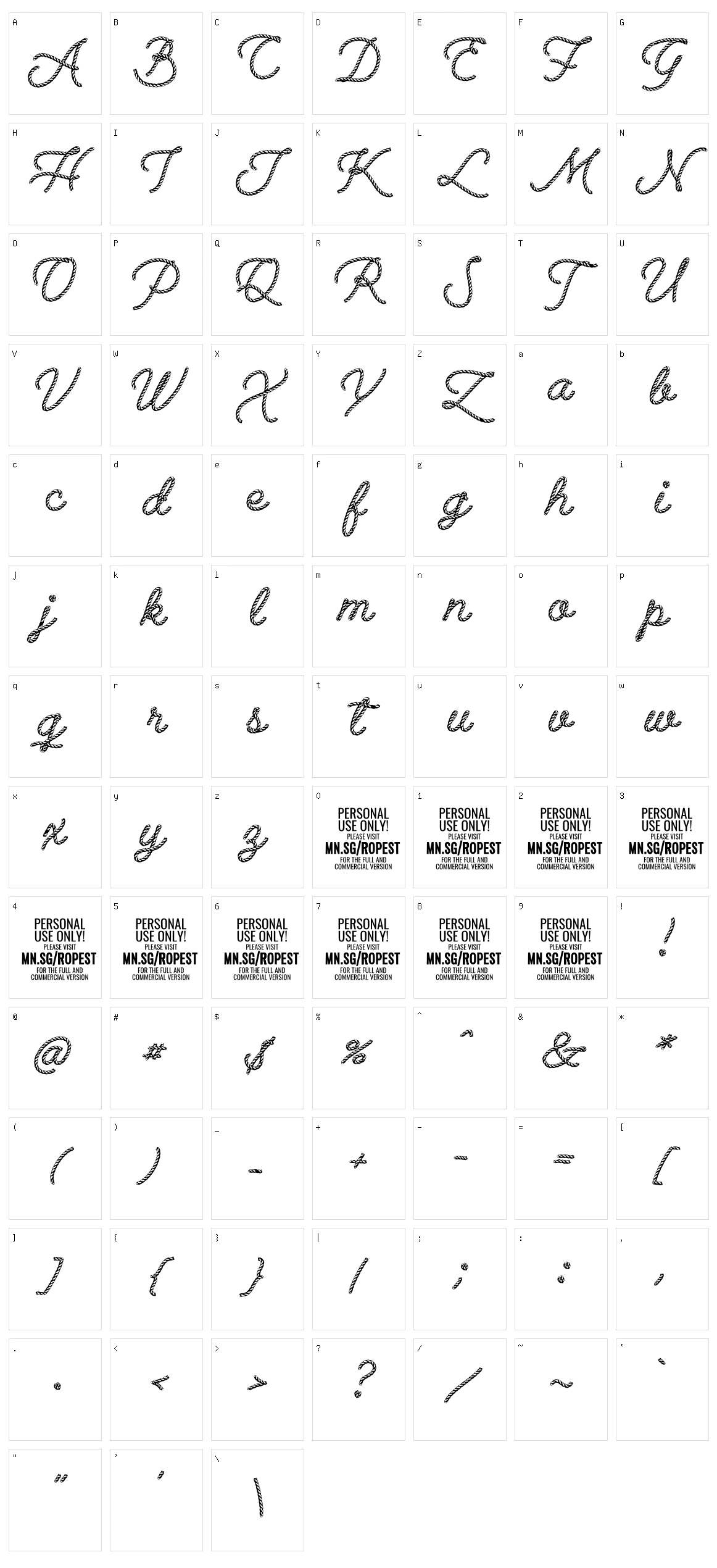
Ropest is a decorative script typeface, created by Måns Grebäck during 2018.
It keeps the same quality as any cursive font, while also being a brave display typeface.
The family comes in two styles; one primary that has the real rope appearance; one Black or solid, to be used by itself or as a background to the rope font.
It contains ligatures, and has support for all Latin based European languages.